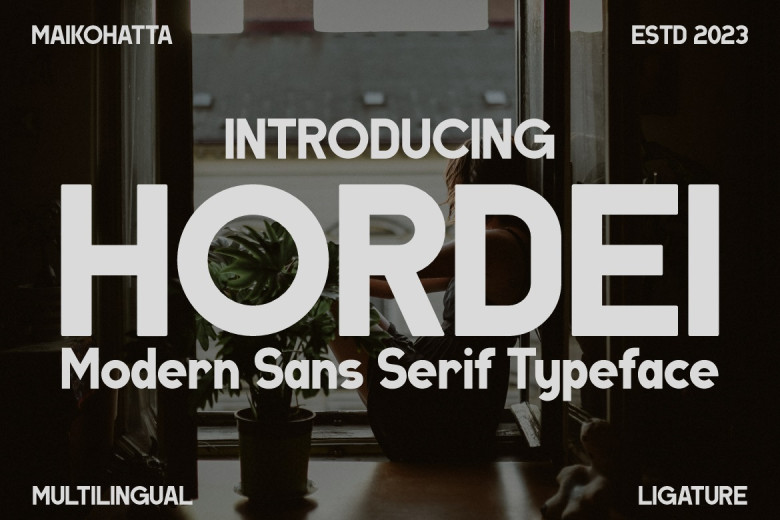
Hordei Font
Hordei Font is an elegant real and modern sans serif font that stands out as both real and modern. Perfect for logos, templates or esports teams; Hordei excels in any scenario!
Hordei Sans Serif Font